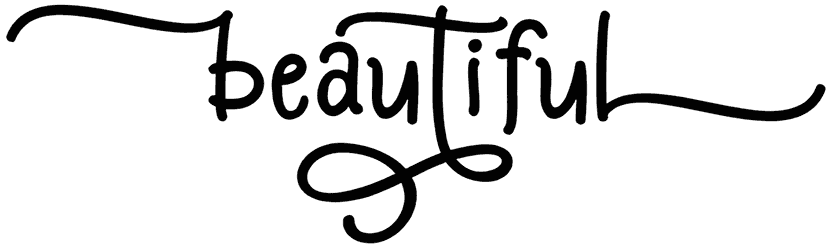
Beautiful Font
A casual handwritten font called Beautiful has a relaxed, hand-drawn aesthetic that’s perfect for creating whimsical patterns that kids will love.
If you need a poster for a school event, a birthday invitation, or a logo for a kids’ brand, Beautiful is a great choice. In spite of its illegibility, it will bring a sense of fun and whimsy to your writing. To brighten up your designs, get Beautiful from RB today.